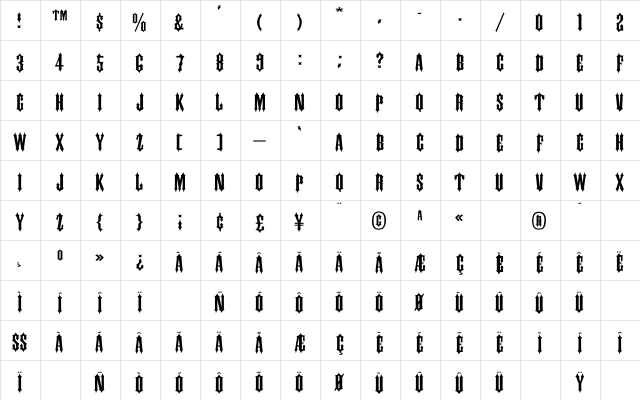
IRONWOOD-Medium Wd echoes the hand-painted signage and woodblock typography of the American frontier, with a warm, rugged personality.
Font Pairing: Combine IRONWOOD-Medium Wd with a simple slab or neutral sans - period-accurate companions reinforce the vintage feel without competing for attention.
Pro Tip: Use IRONWOOD-Medium Wd for short, impactful bursts of text - it shines in poster headlines and product names rather than extended copy.